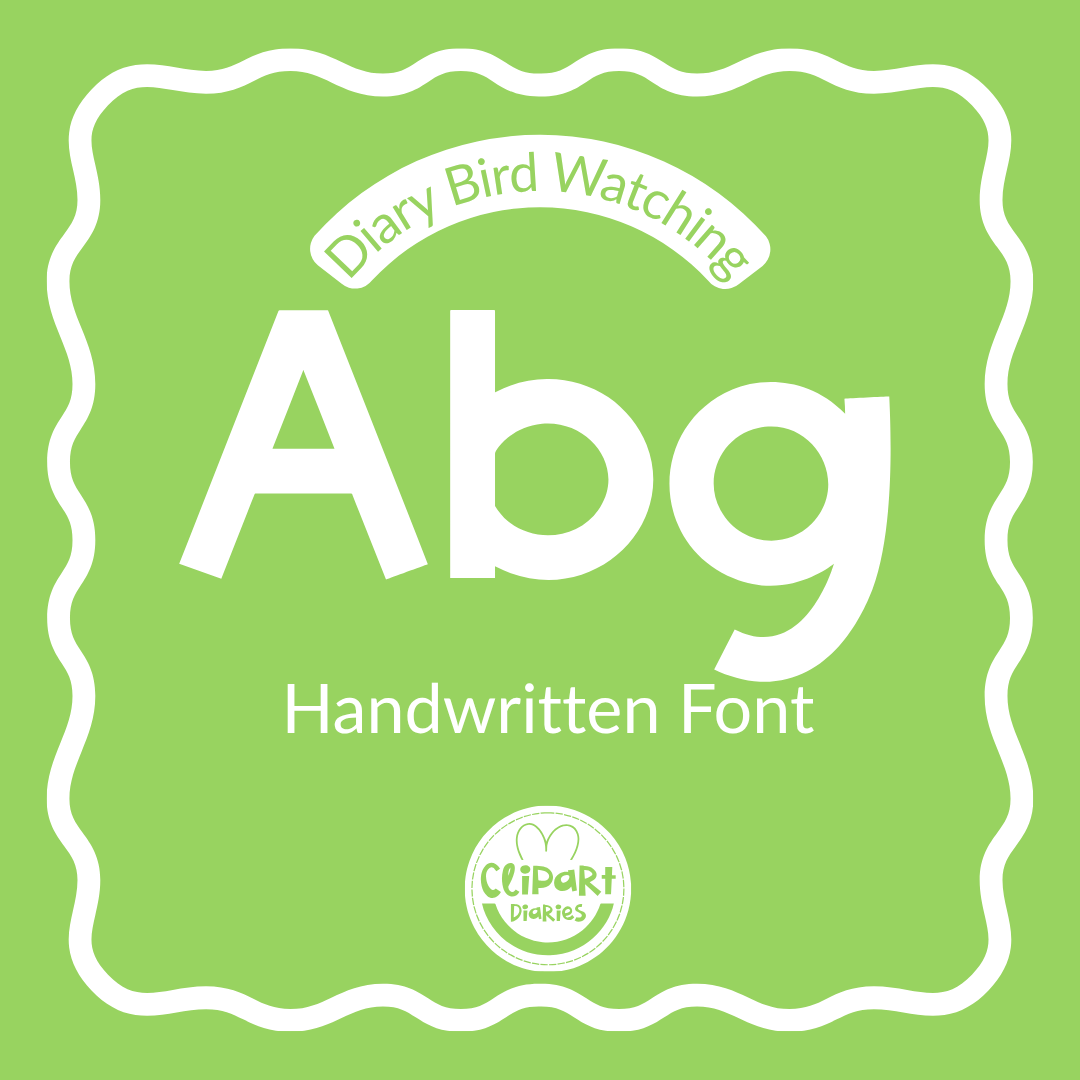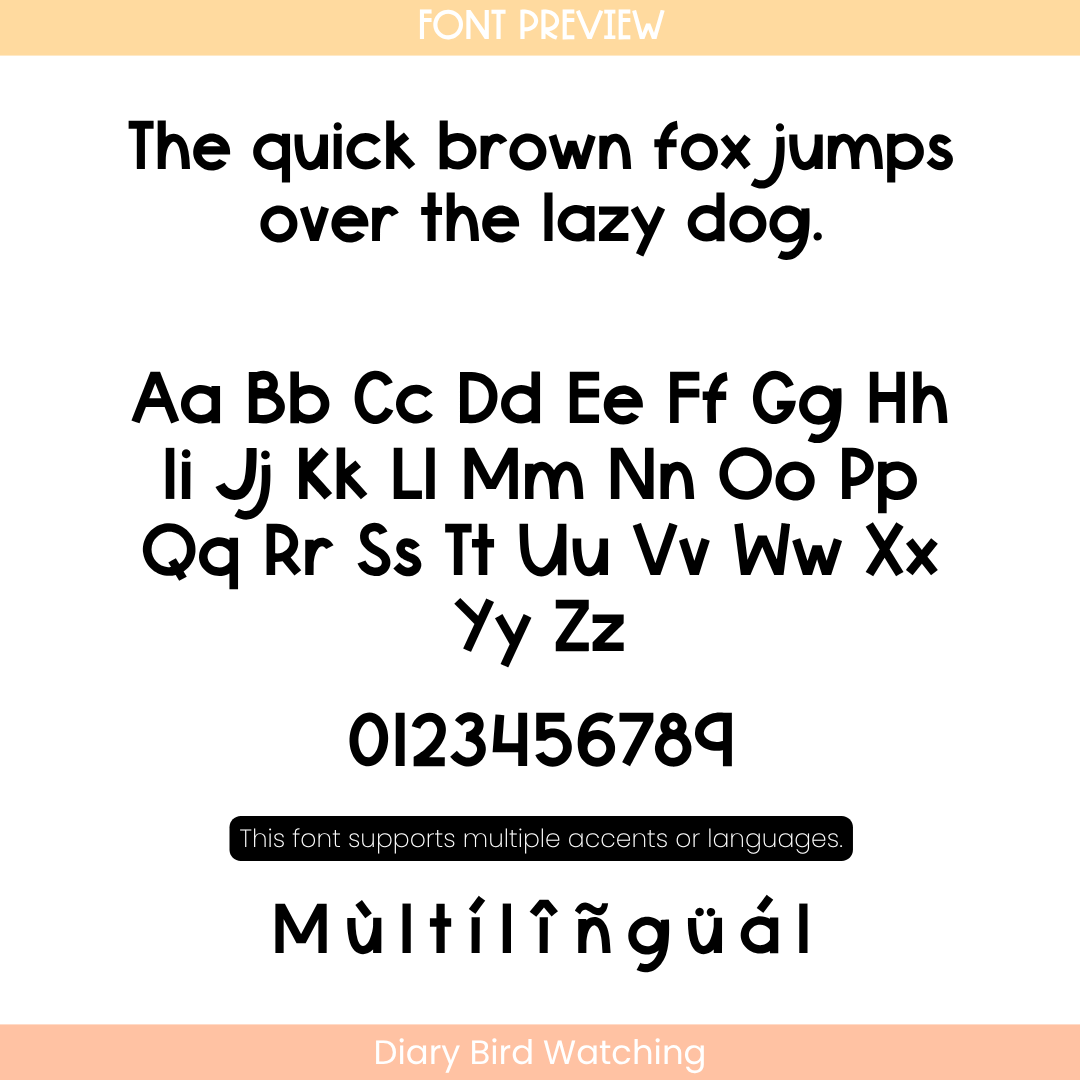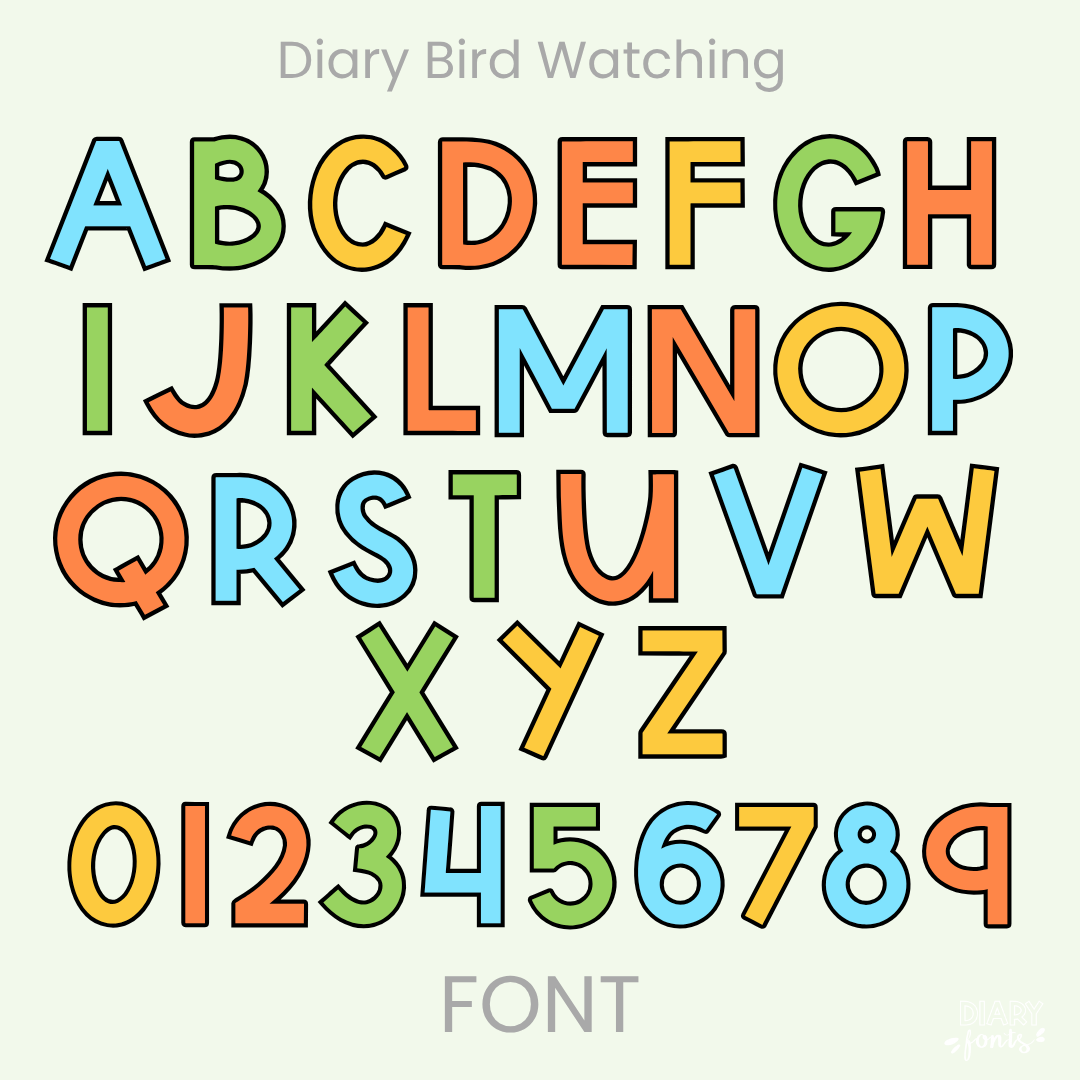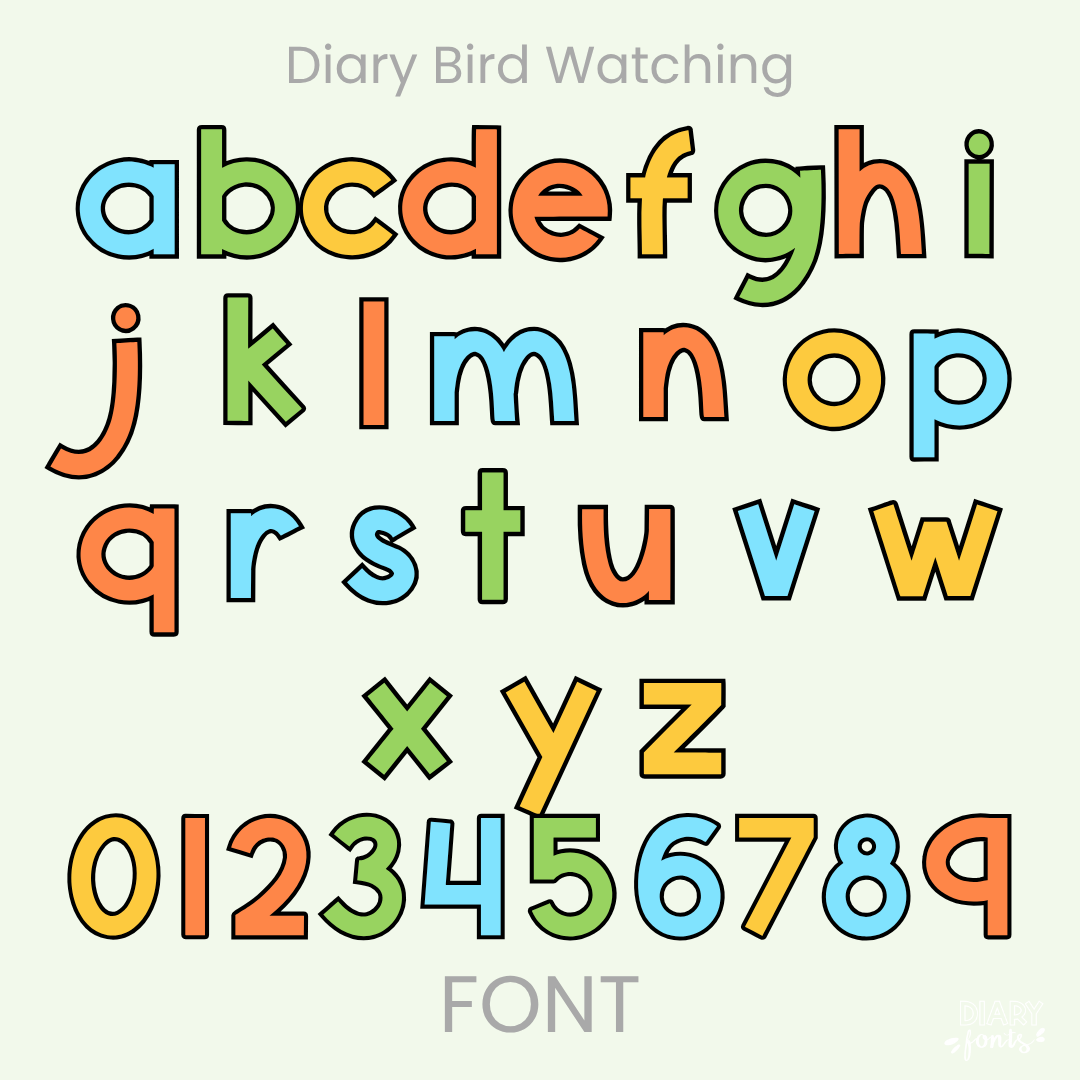
Bring a sense of the outdoors to your creative projects with Diary Bird Watching, a handwritten font that perfectly balances a relaxed, natural aesthetic with professional legibility. This versatile typeface includes a complete set of uppercase and lowercase letters, numbers 0–9, and full multi-language support for various accents, making it ideal for global educational content. It is engineered for seamless compatibility with Canva, MS Office, and Adobe Apps, as well as popular iPad tools like GoodNotes and Procreate. Whether you are creating nature-themed classroom decor, science worksheets, or digital planners, Diary Bird Watching offers a polished, hand-drawn look that is perfect for both personal and commercial use.